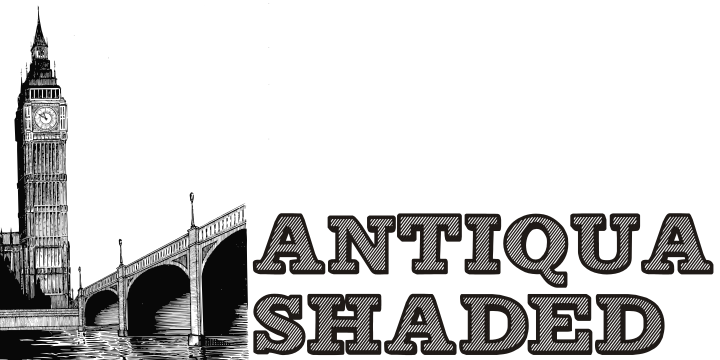
Antiqua Shaded
by Intellecta Design
The Antiqua Shaded Font Family was designed by Iza W and published by Intellecta Design. Antiqua Shaded contains 5 styles and family package options. More about this family
a well crafted font inspired in classic wood type fonts heritage
Designers: Iza W
Foundry: Intellecta Design
Original Foundry: Intellecta Design